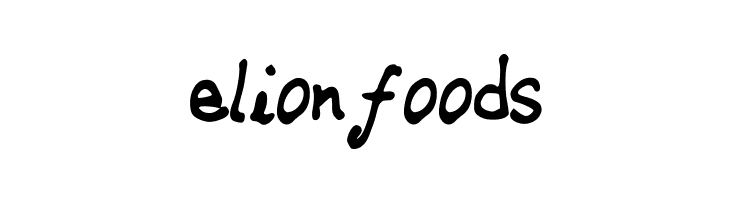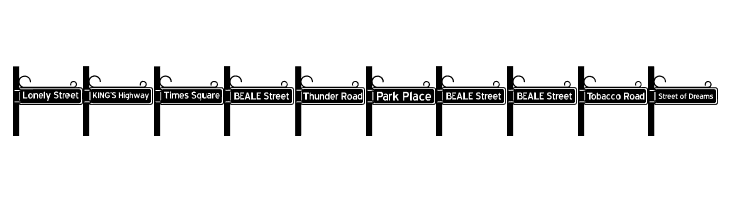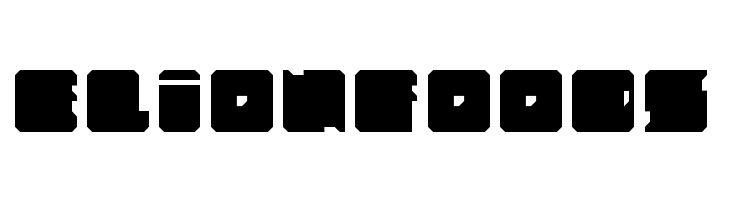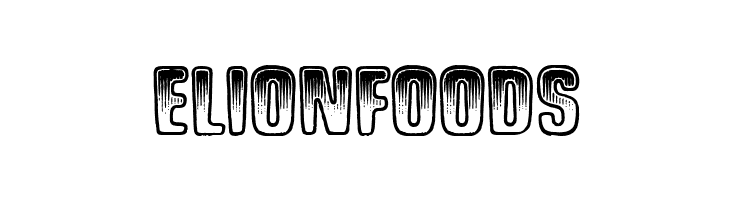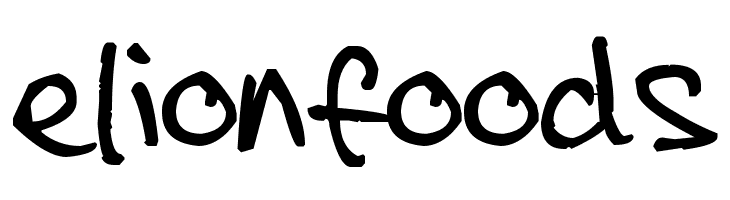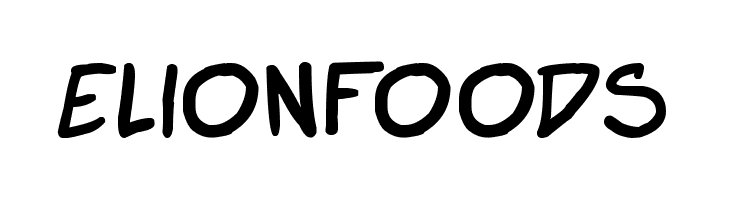
A bold, vintage-style font with thick, heavy strokes and a strong presence.
A playful, bold handwritten font with a casual and friendly style.
A bold, decorative font inspired by street signs, featuring uppercase letters in rectangular frames.
A bold, distressed font with a vintage, textured appearance.
A playful and casual handwritten font with a dynamic, informal style.
A playful, casual handwritten font with a personal touch.
A playful, hand-drawn style font with bold, rounded characters.
A playful and casual handwritten font with fluid, organic letterforms.
A modern, geometric monospaced font with rounded edges and consistent stroke thickness.